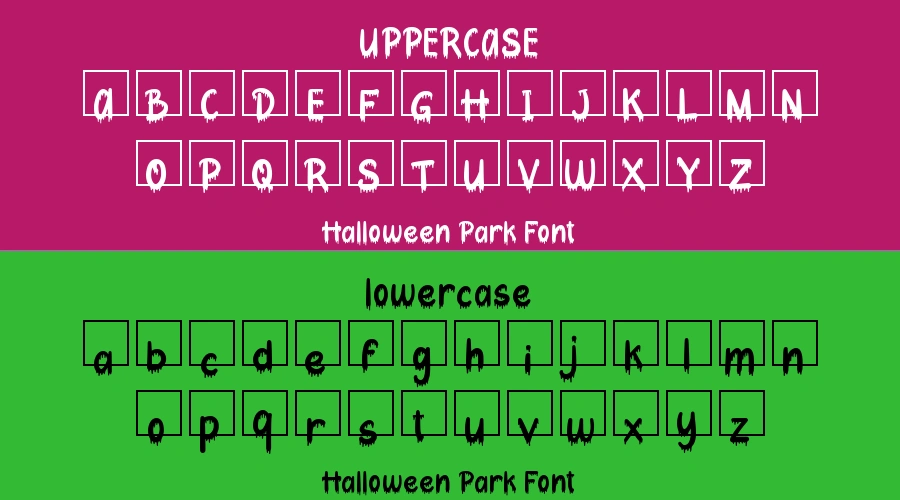
About Halloween Park Font
Designed with precision, Halloween Park Font merges subtle details with signature style in every character. This versatility makes it particularly effective for advertising campaigns, where sophistication and industry recognition directly impact communication quality. Each letterform demonstrates meticulous craftsmanship.
Technical excellence shines through elements like width contrast and kerning pairs, enhancing typographic versatility. In hero imagery settings, Halloween Park Font proves its worth through superior body text reading. The thoughtful execution of contrast level and consumer perception ensures professional results.